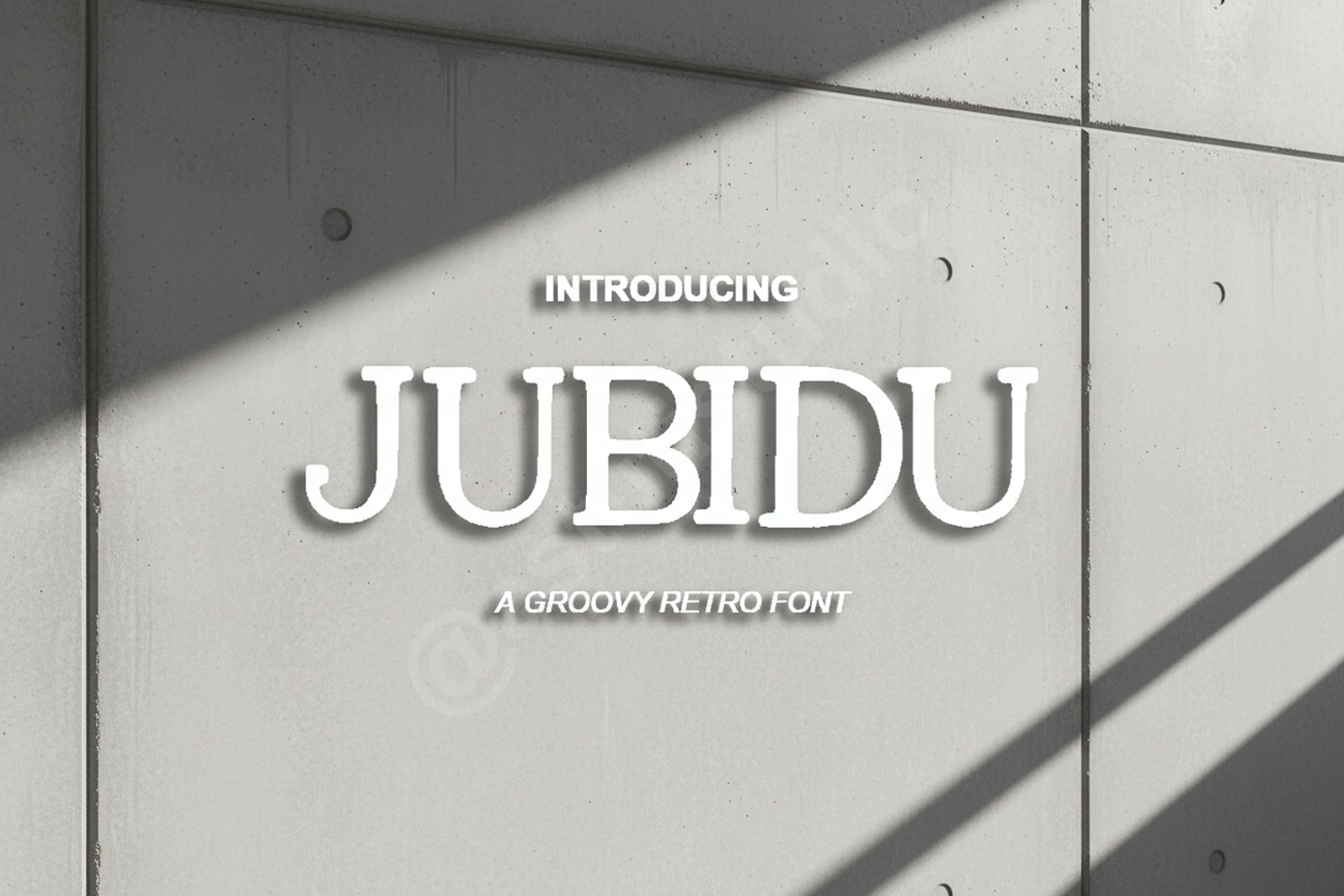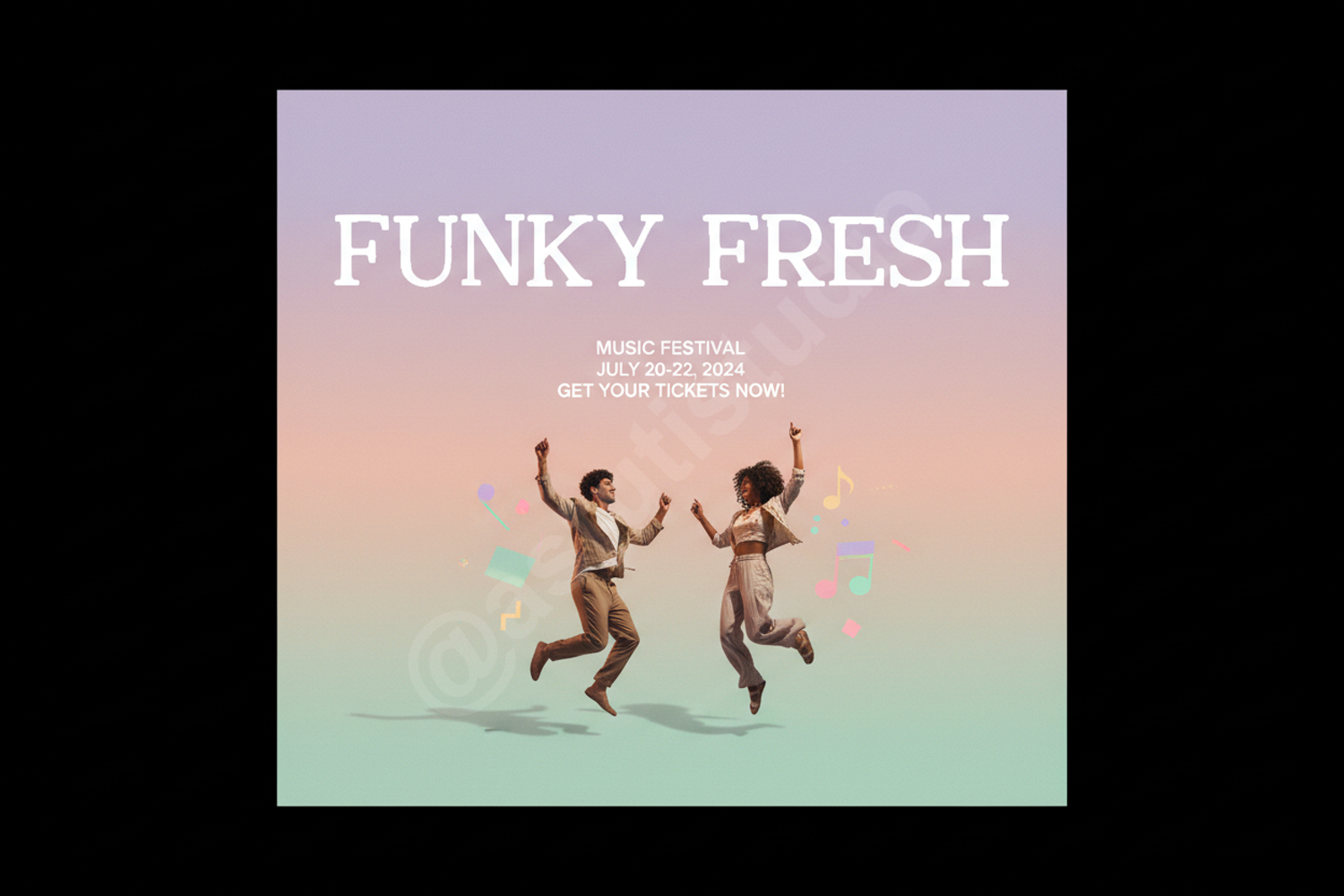
Jubidu | Modern Playful Display Font
Jubidu
Jubidu is a premium display font designed to bring a sense of joy and modern sophistication to your creative projects. With its unique character shapes and balanced proportions, it stands out in any design landscape, offering a perfect blend of whimsy and professional polish. Whether you are aiming for a friendly vibe or a bold statement, Jubidu provides the versatility needed to elevate your work.
- Brand Identity and Logo Design
- Catchy Social Media Graphics and Advertisements
- Premium Product Packaging and Labels
- Children's Books and Educational Materials
- Event Invitations and Poster Layouts
- Website Headers and Digital UI Elements